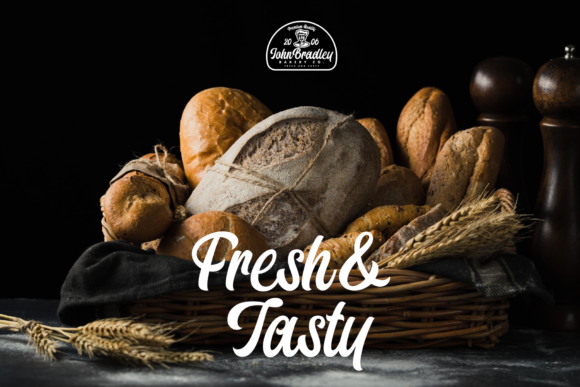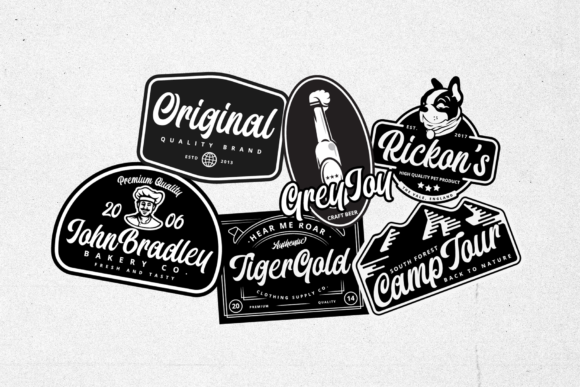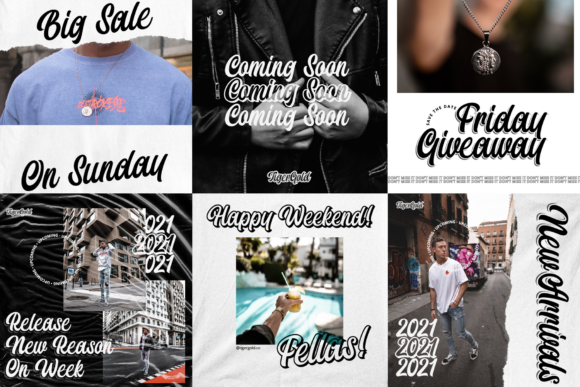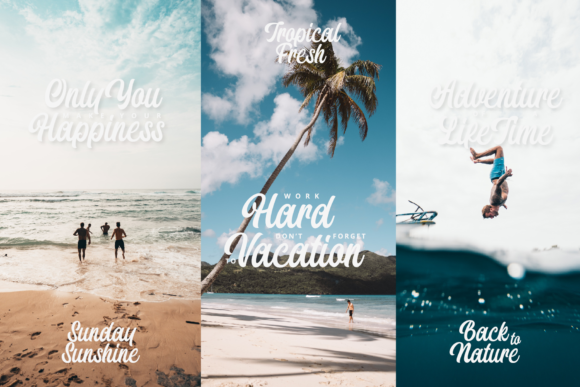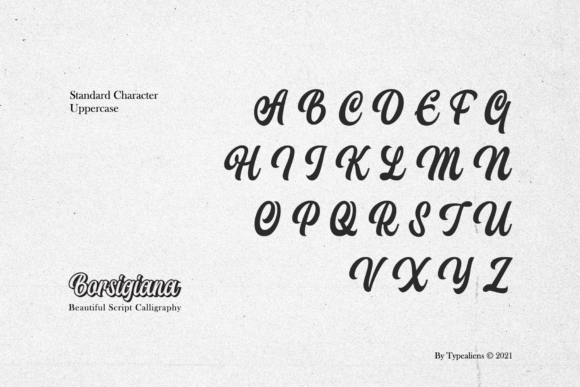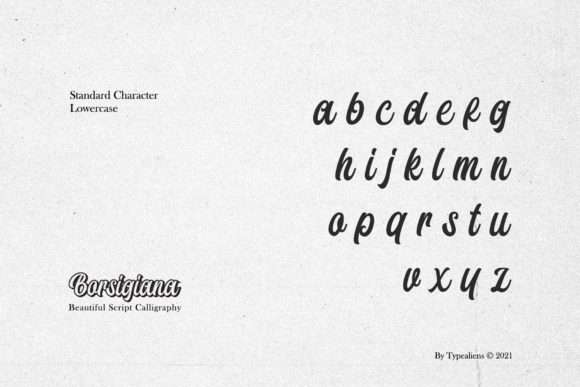
The Power of Personality: Unleashing the Borsigiana Font
I’ll never forget the design struggle I faced while working on a branding project for a vintage-inspired fashion label. My client wanted a font that exuded confidence, nostalgia, and a touch of playfulness. I scoured the internet, tried countless fonts, but nothing seemed to fit the bill. That was until I stumbled upon the Borsigiana font. ✨
This cursive and assertive handwritten font has been a game-changer for my design projects, and I’m excited to share its awesomeness with you. In this article, we’ll dive into the world of Borsigiana, exploring its features, uses, and some fantastic alternatives.
- ✅ Confidence booster: Borsigiana reads as strong, confident, and dynamic, making it perfect for headlines and logotype projects.
- ✨ Nostalgic charm: This font adds a touch of vintage flair to your designs, evoking a sense of nostalgia and timelessness.
- 🎨 Versatile: Borsigiana works well with a variety of design styles, from modern to vintage-inspired.
While Borsigiana is an amazing font, there are a few things to keep in mind: 🤔
- ⚠️ Limited use in body text: Due to its cursive nature, Borsigiana might not be the best choice for lengthy body text. It’s better suited for headlines and titles.
- ⚠️ Glyph limitations: Some users have reported limited glyph options, which might restrict its use in certain design projects.
The Designer Inspiration Behind Borsigiana
Borsigiana was crafted with inspiration from vintage typography and a passion for creating unique, hand-crafted fonts. The designer aimed to create a font that exudes confidence and nostalgia, while still feeling modern and fresh. Although the designer’s identity remains a mystery, their work has undoubtedly made a lasting impact on the world of typography. 🖋️
Q: What type of projects is Borsigiana best suited for?
A: Borsigiana is perfect for headlines, logotypes, and titles in various design projects, such as branding, advertising, and packaging.
Q: Can I use Borsigiana for body text?
A: While Borsigiana is a beautiful font, it’s not ideal for lengthy body text due to its cursive nature. It’s better suited for headlines and titles.
Q: Does Borsigiana support OpenType features?
A: Yes, Borsigiana supports various OpenType features, such as Stylistic Alternates and Glyphs, which can be accessed in compatible design software.
Q: Is Borsigiana a versatile font?
A: Absolutely! Borsigiana works well with a variety of design styles, from modern to vintage-inspired, making it a versatile addition to any designer’s font library.